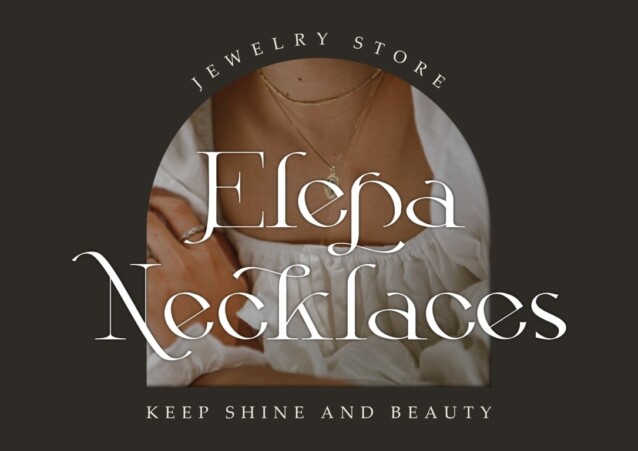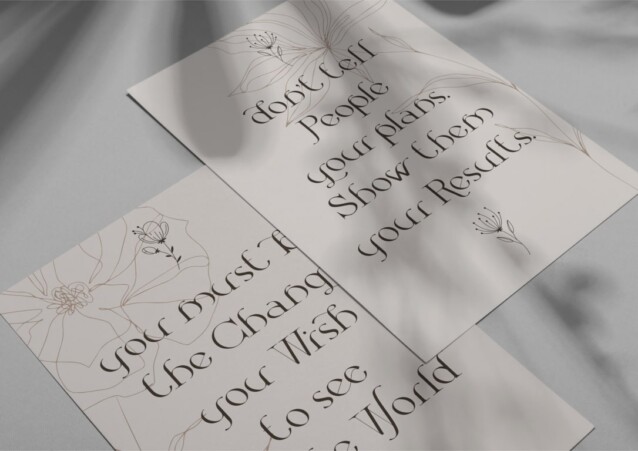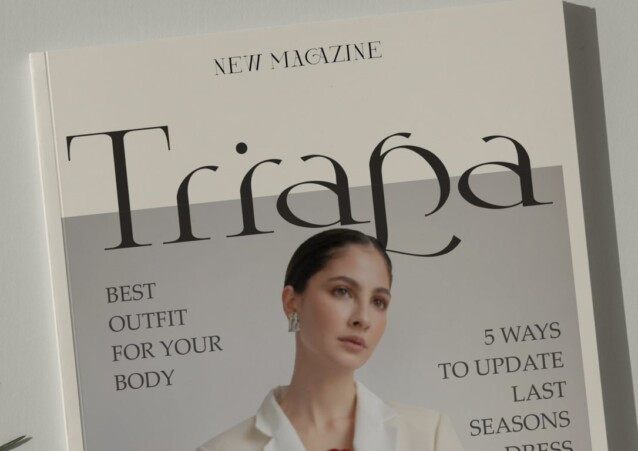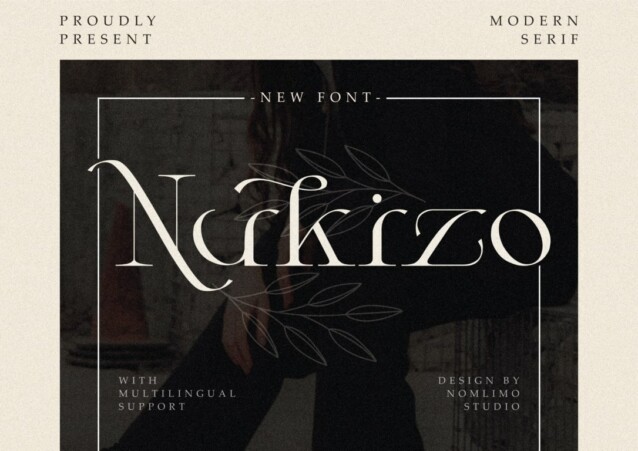
Nukizo Font
Nukizo Font is a balanced, smooth, elegant and stylish serif font designed by Nomlimofont. This font features a light weight and high contrast, making it ideal for creating feminine logo designs, fashion headings, and editorial layouts. Nukizo is a perfect choice for various branding projects, logo design, clothing branding, packaging, magazine headings, advertising, postcards, and much more. Let Nukizo add a touch of elegance and sophistication to your designs and elevate your creative endeavors to new heights.